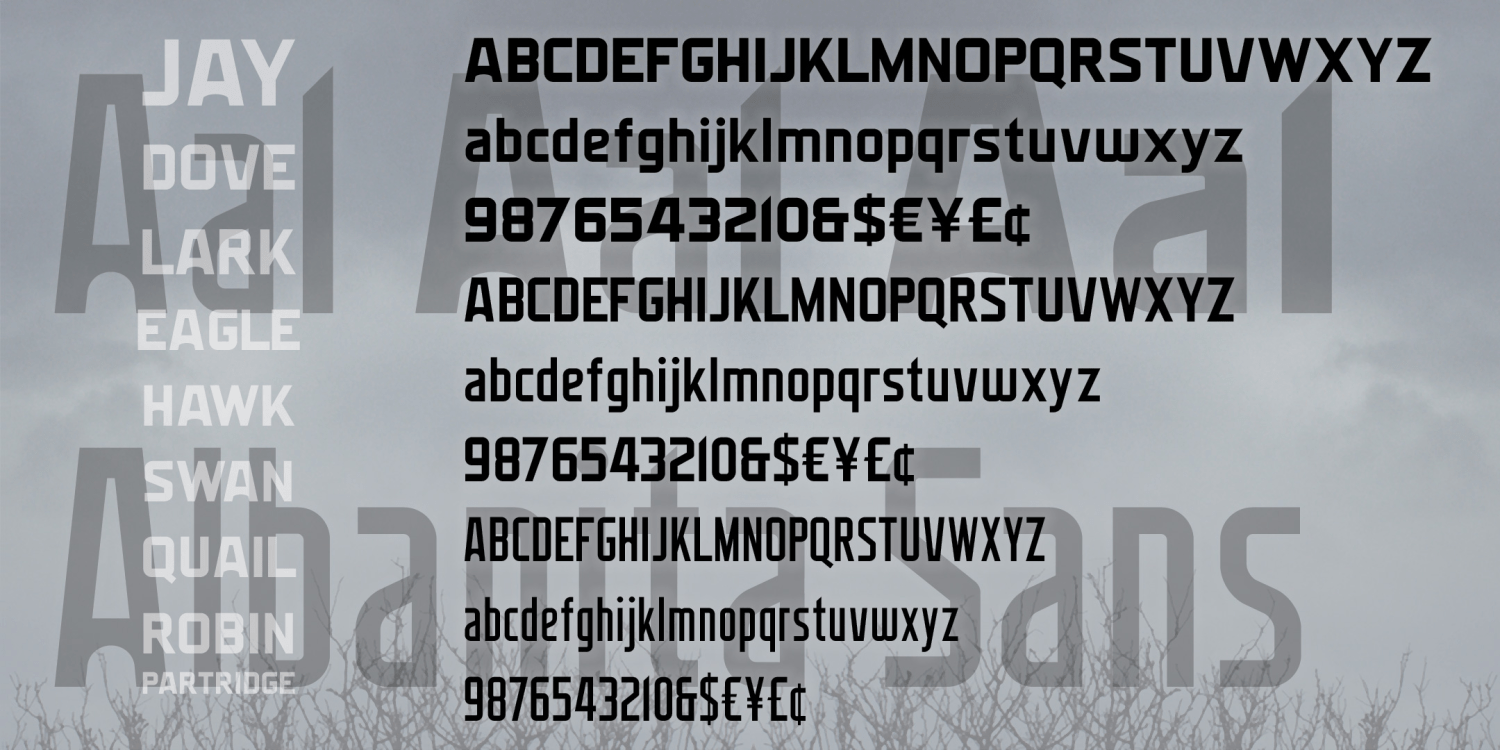
Albanita
About Albanita
Albanita is a set of new fonts that give a sense of history, without a specific reference to a time or place. These were indirectly inspired by the city of Albany, New York, my hometown for over 30 years. Albany has a distinctive look and character that…